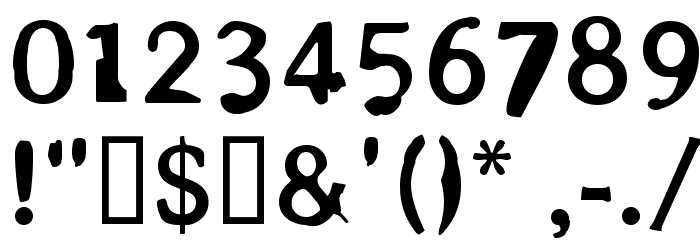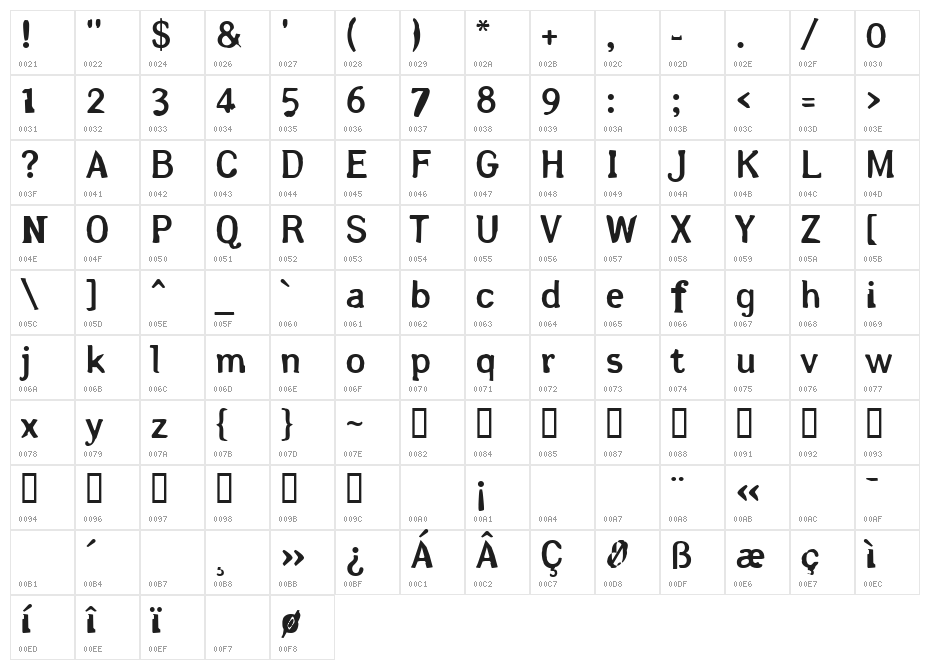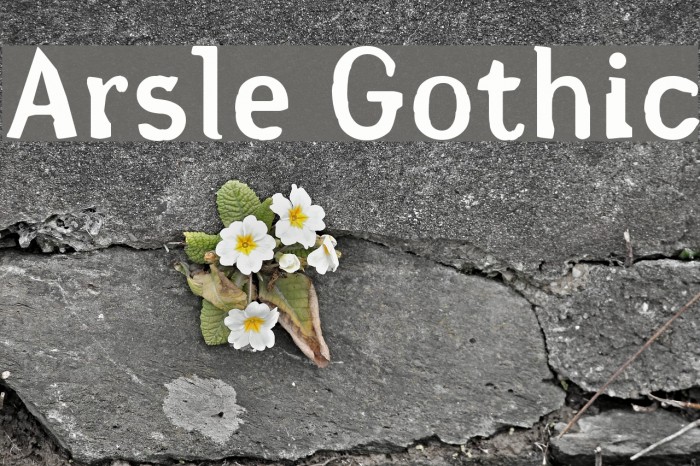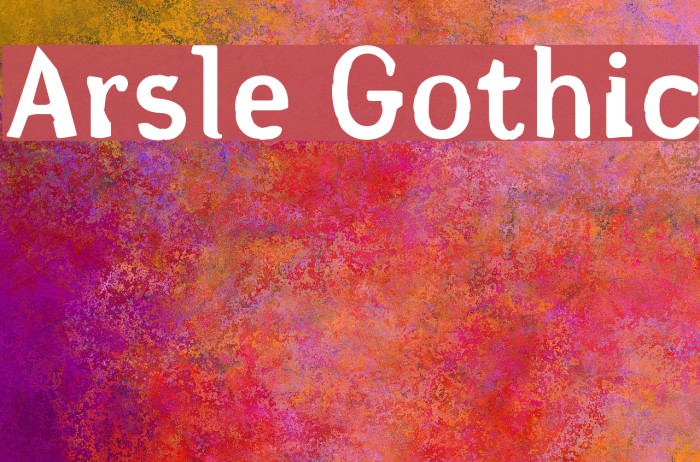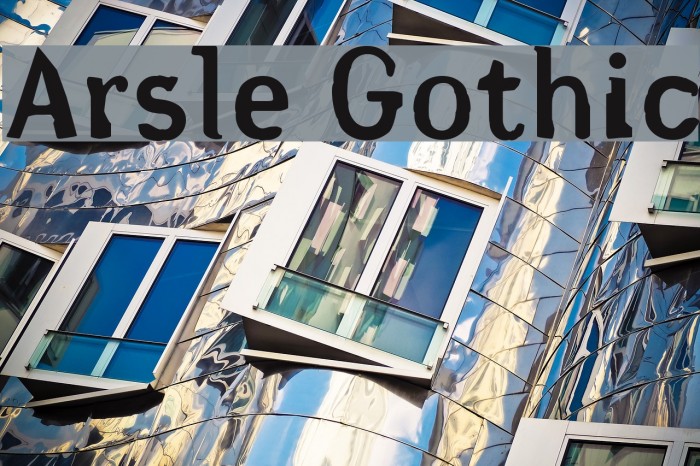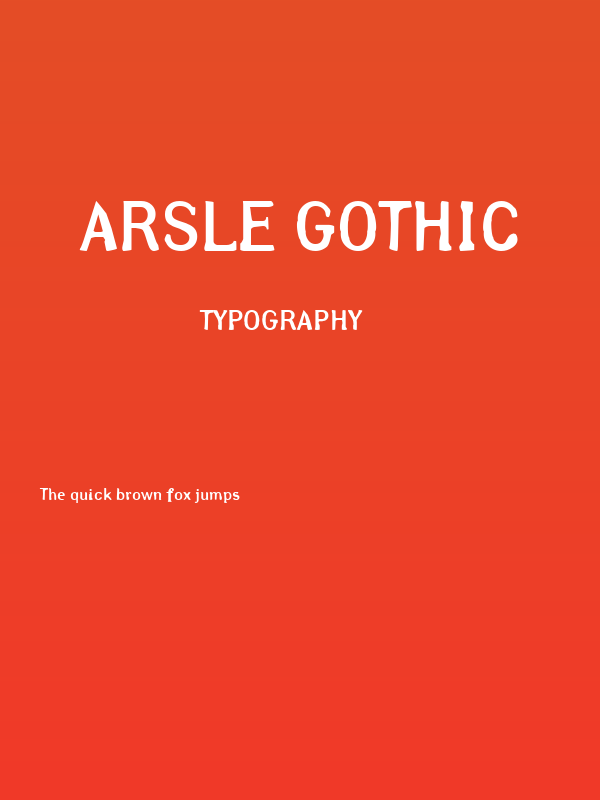
Arsle Gothic Font
Arsle Gothic Description
This font features a bold and robust design with a distinctive Gothic influence. The uppercase letters are strong and commanding, with slightly rounded edges that soften the overall appearance. The lowercase letters maintain a consistent weight, providing a harmonious balance between the characters. The numerals are clear and legible, with a uniform thickness that complements the alphabetic characters. Special characters are well-defined, adding versatility to the font's usage. The overall style is both modern and classic, making it suitable for a variety of design applications.
| Overall Style | Modern, Classic |
| Proposed Projects | Ideal for branding, headlines, posters, and any project requiring a strong visual impact. |